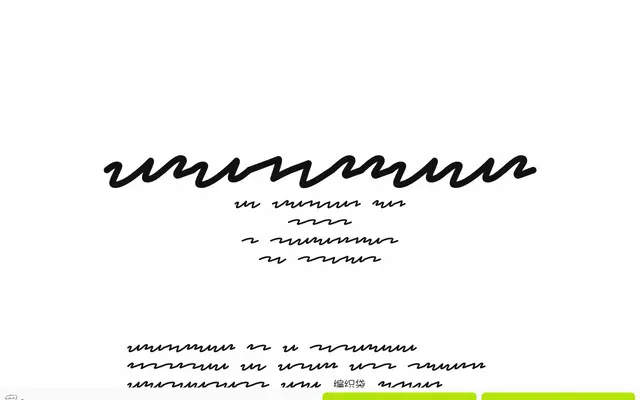
BIANZHIDAI
Not Your Type · Xiaoyuan Gao · 2023
A modular display typeface by Xiaoyuan Gao drawing on ASCII art shading characters and the woven plastic bags known in Chinese as 编织袋, available in 27 styles across three subfamilies including COLR font variants.
Originally constructed in GLYPHDRAWING.CLUB and refined into a modular system, the typeface translates the texture of woven polypropylene bags and ASCII shading into letterforms across ten named style variants per main subfamily. The COLR subfamily adds colour-layer configurations including RGB, Grid and multi-layer separations for layered colour output. Co-distributed with Velvetyne Type Foundry and available under a conditional free licence for personal, educational and small commercial use.
A modular typeface built from ASCII art shading characters and woven bag textures, producing highly decorative, patterned letterforms that sit firmly in the display category with no conventional typographic classification applicable.